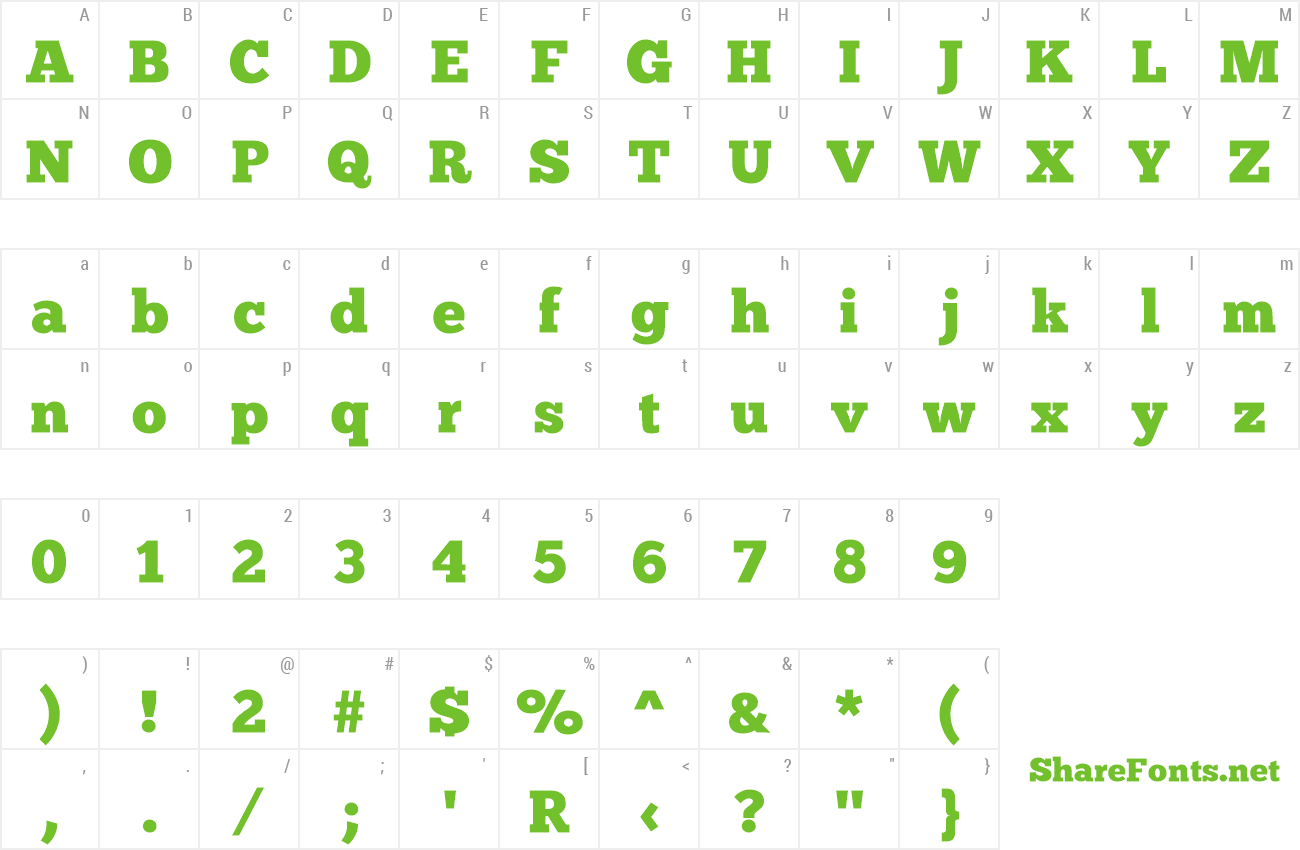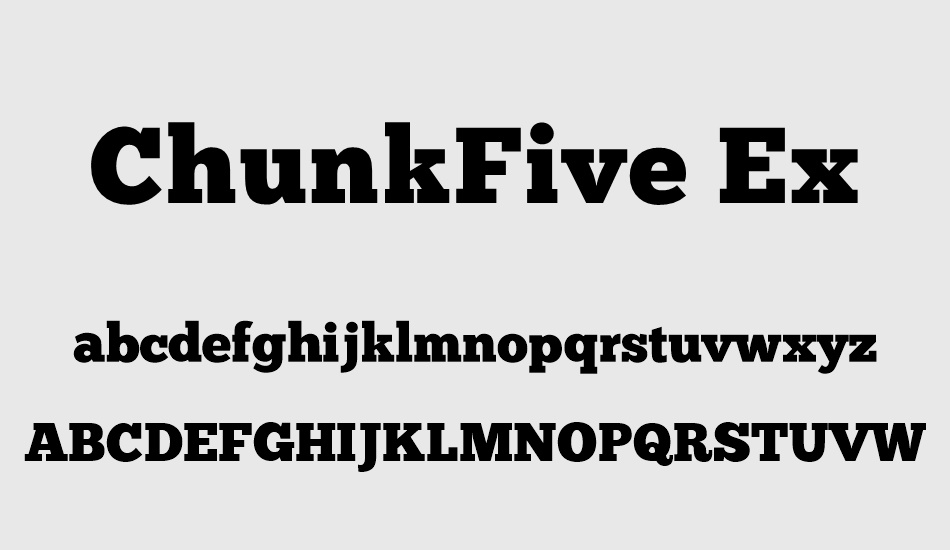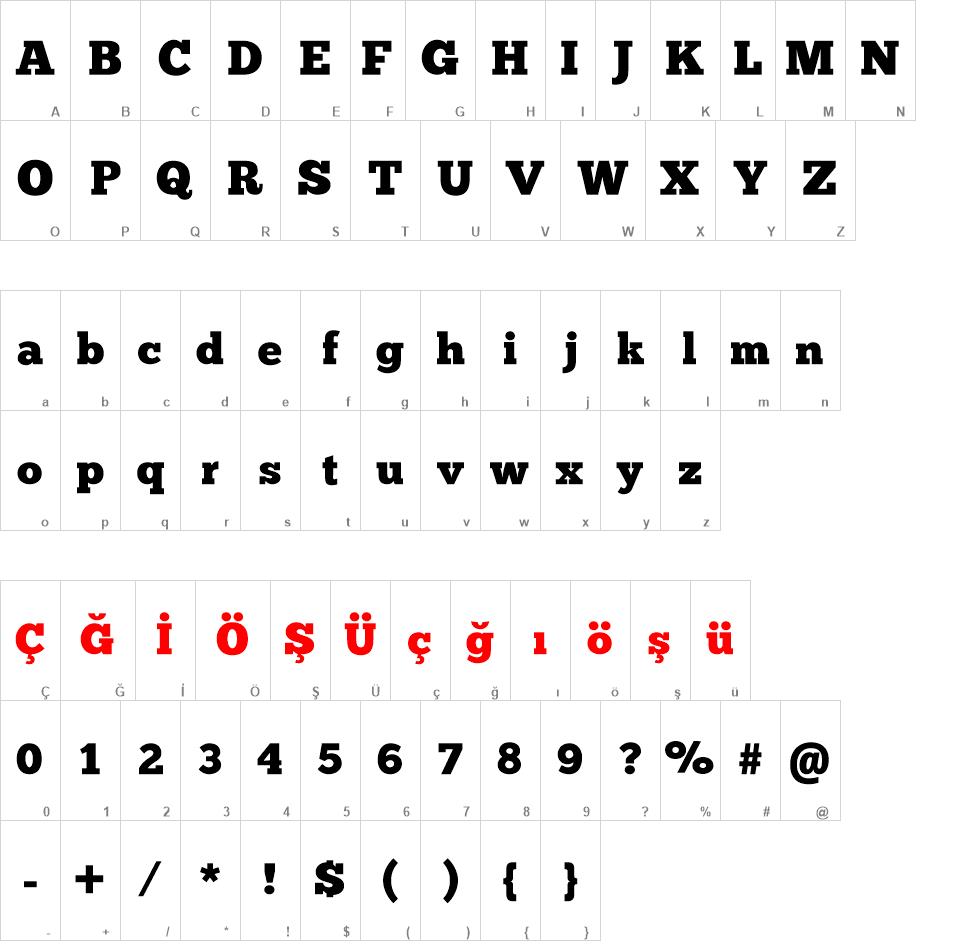
Chunk 5 Font
Chunk 5 Font - Used mainly for display, the fat block lettering is unreserved yet refined.
Used mainly for display, the fat block lettering is unreserved yet refined.